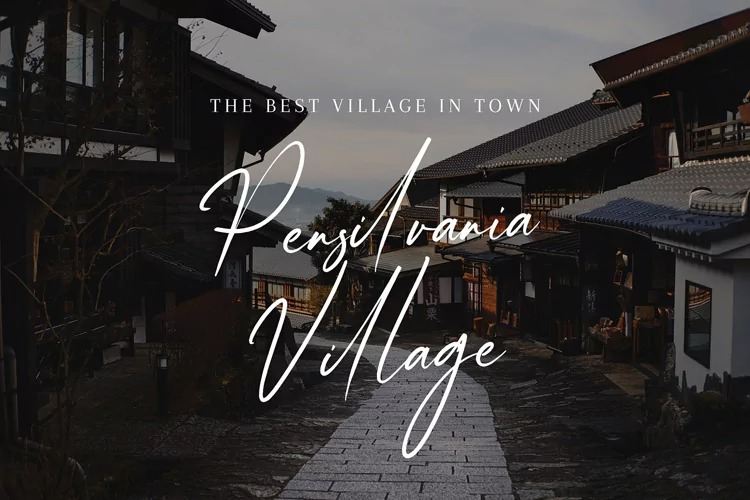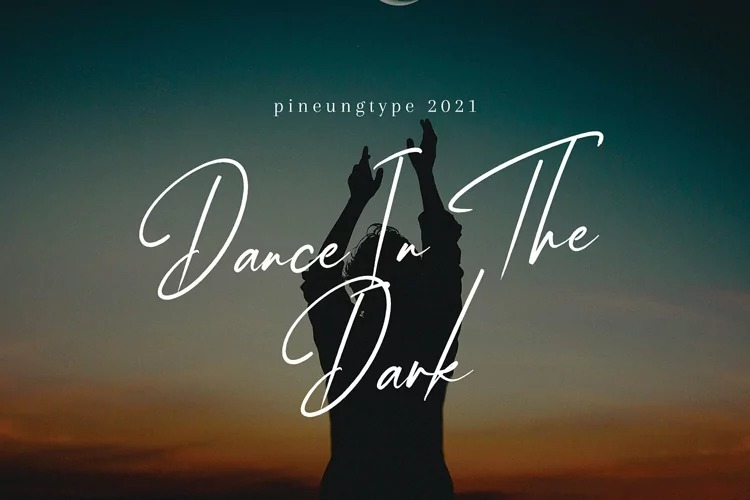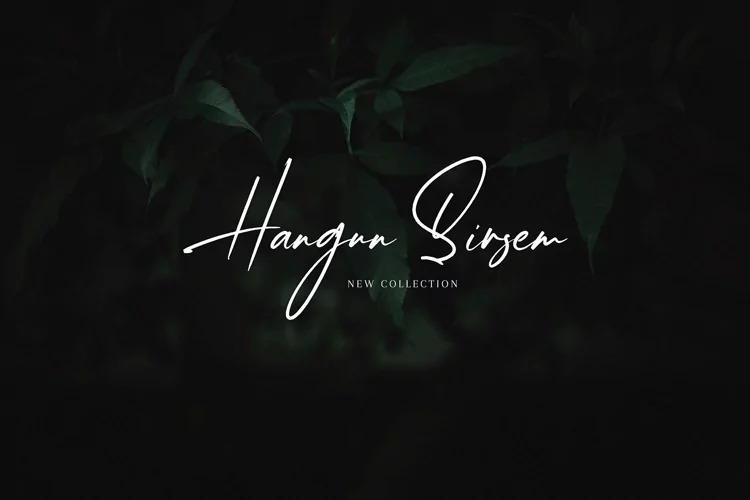
Afika Thuan Font
Afika Thuan Handwritten Font is a handwritten script typeface inspired by natural and aesthetic hand touches. Balmonte font with new style, this font will perfect for many different project ex: quotes, logo, blog header, poster, banding, fashion, apparel, letter, invitation, stationery, etc…